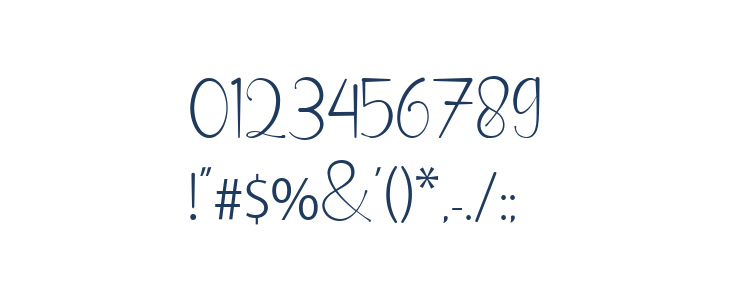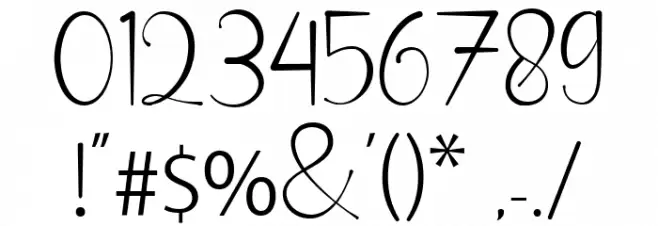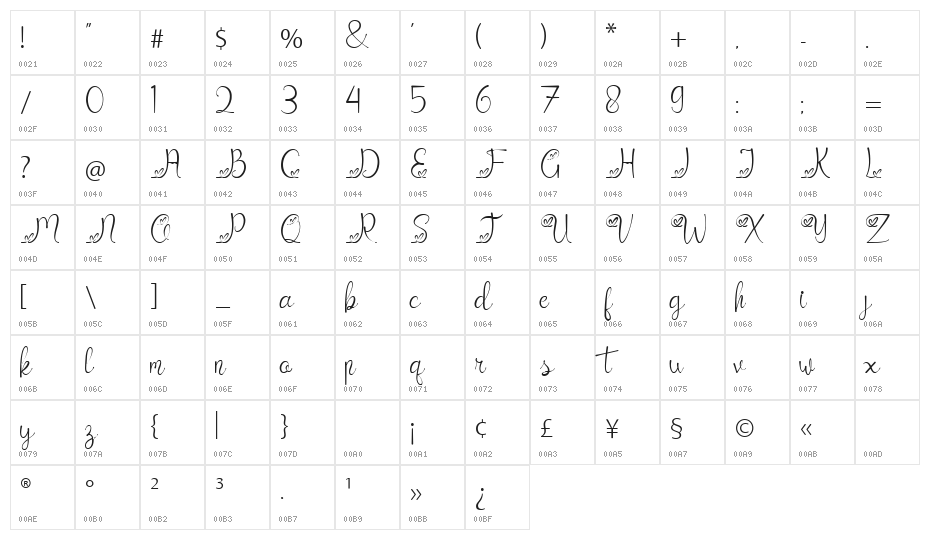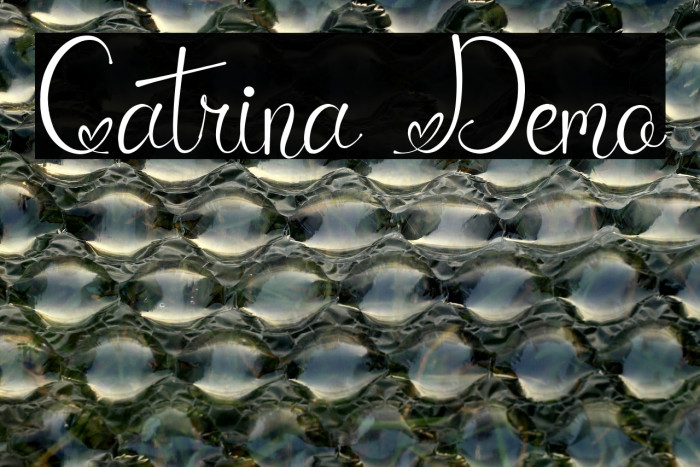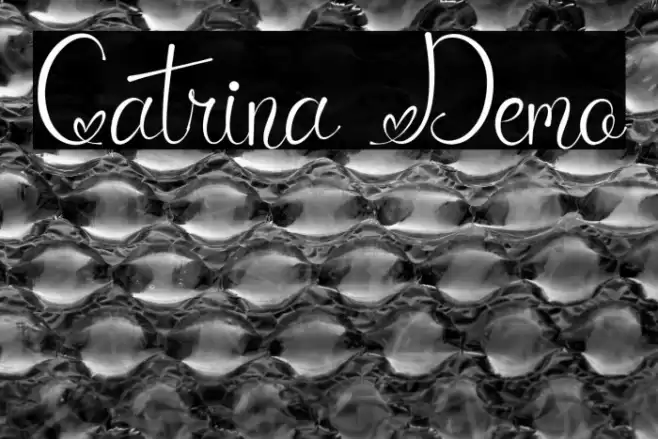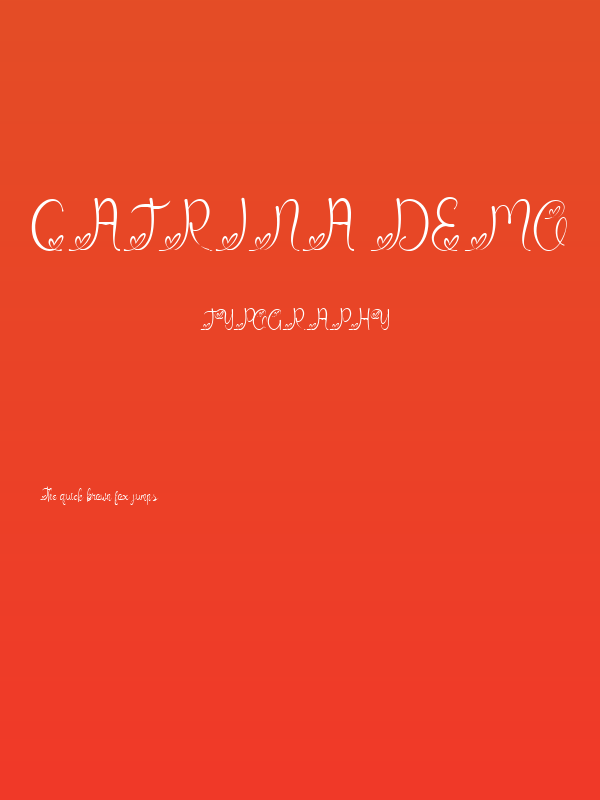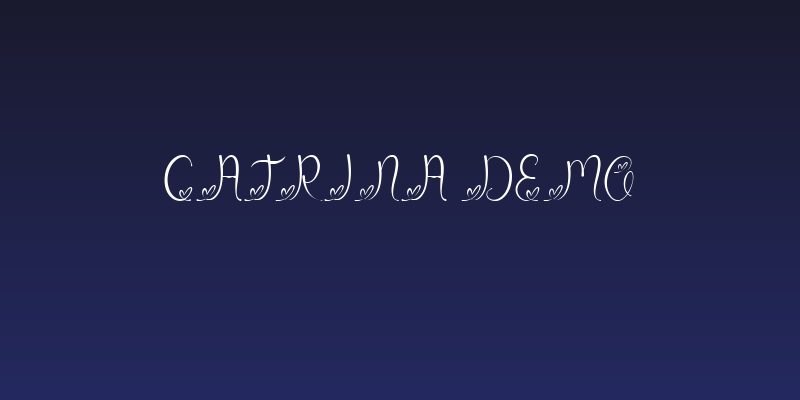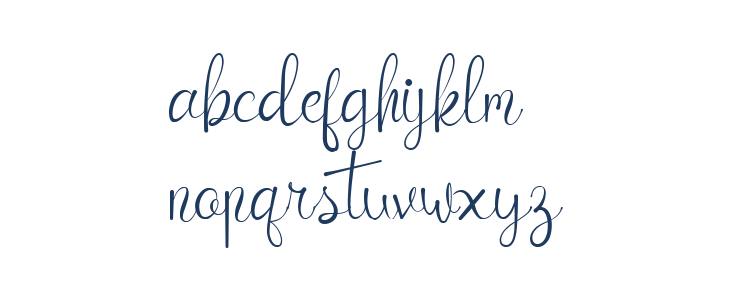
Catrina Demo Font
Catrina Demo Description
This font features a whimsical and playful design, characterized by its decorative elements that resemble hearts integrated into the uppercase letters. The lowercase letters are more fluid and script-like, providing a nice contrast to the more structured uppercase. The numerals and special characters maintain a consistent style, with a slight slant and elegant curves. This font exudes a sense of fun and creativity, making it ideal for projects that require a touch of personality and charm.
| Proposed Projects | Ideal for greeting cards, wedding invitations, playful branding, and children's book covers. |